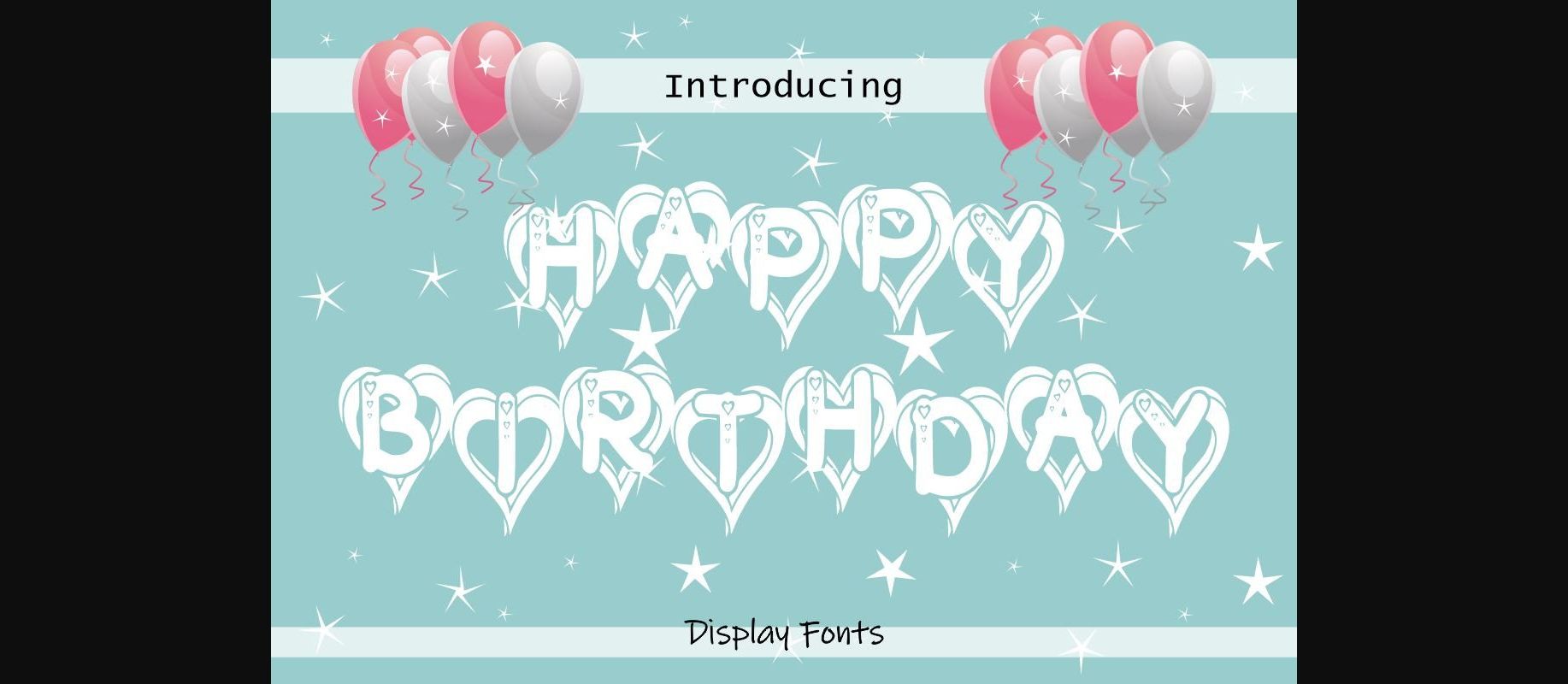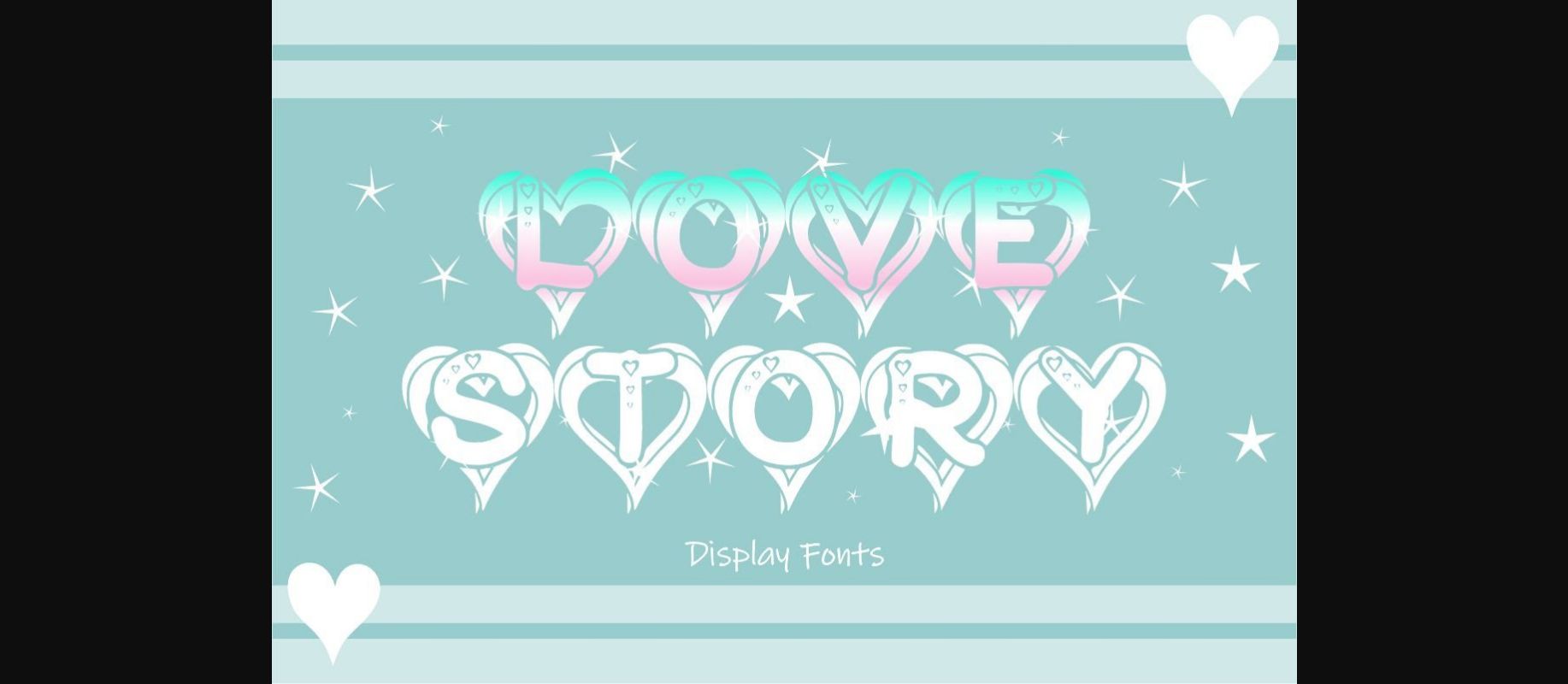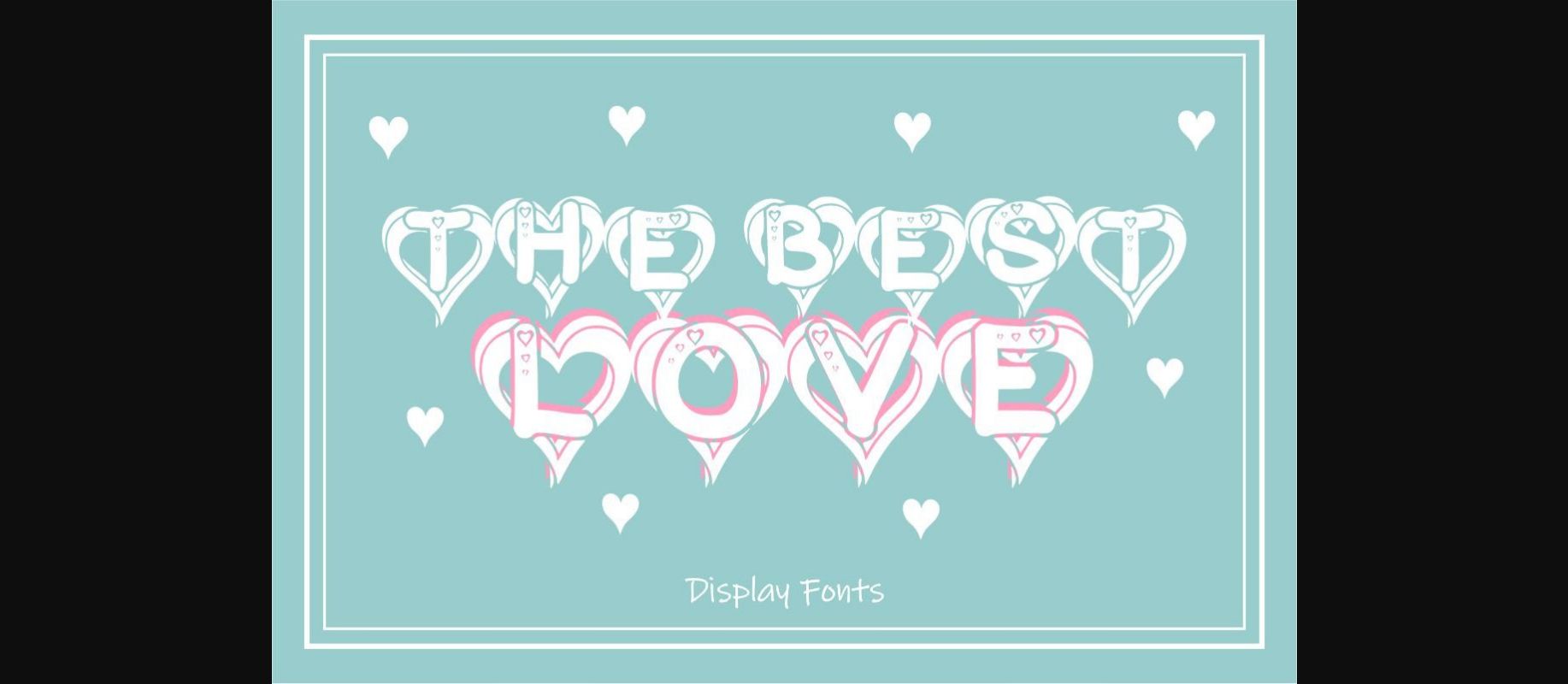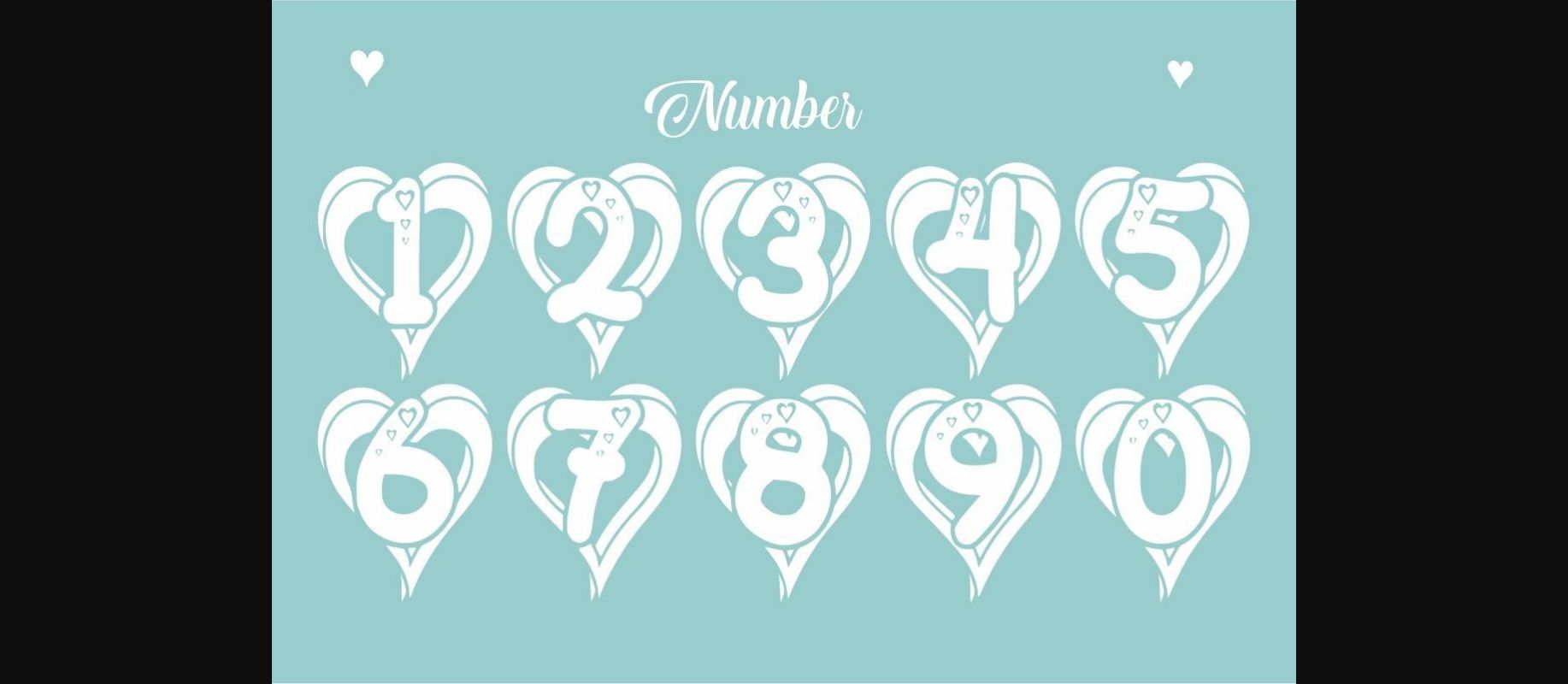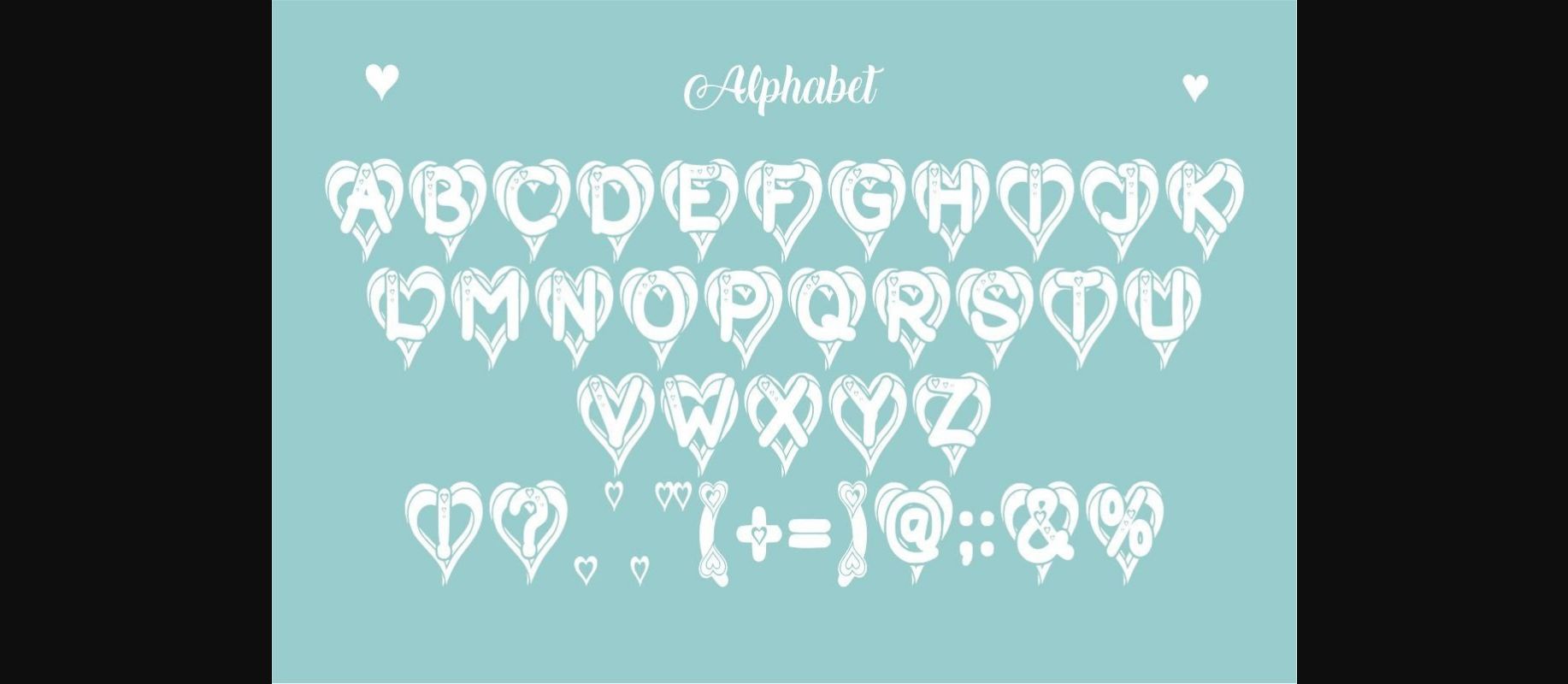
About Happy Birthday Font
Happy Birthday is a cheerful decorative font that will fill your designs with joy! Use it on covers, posters, decor designs, marketing materials, birthday designs, or anything else you need.